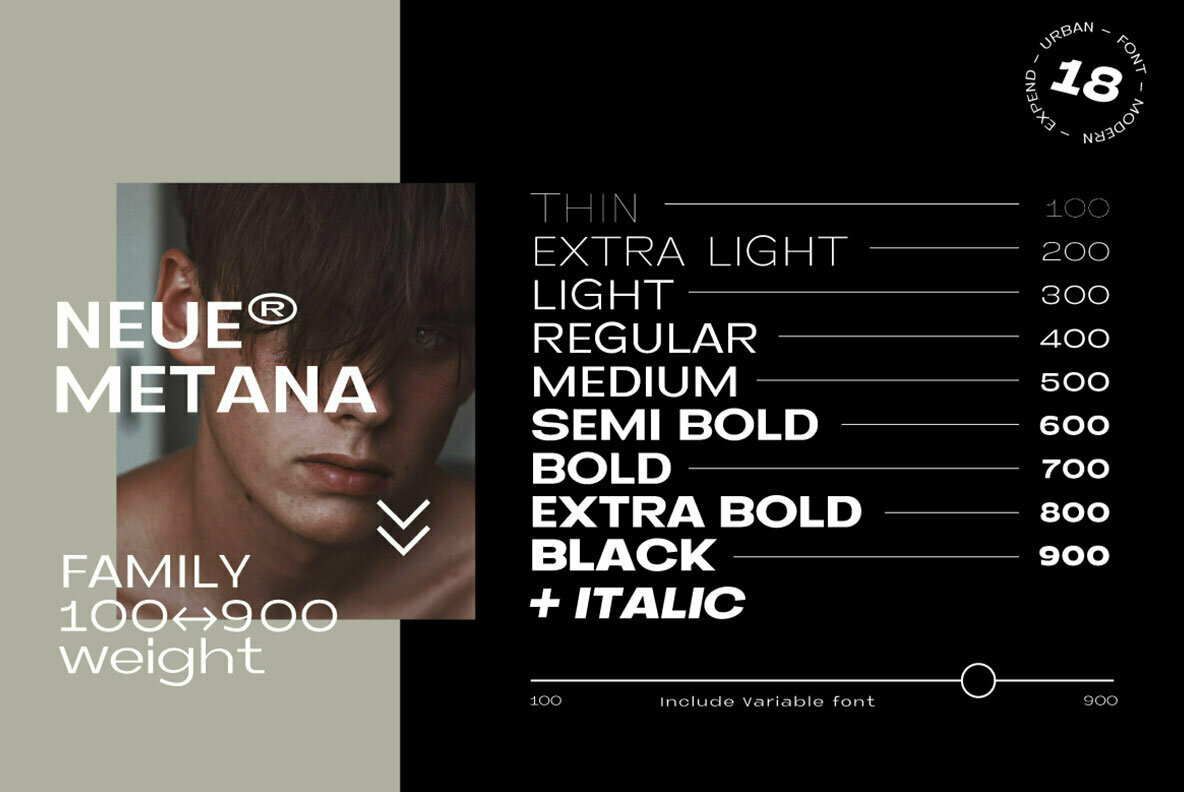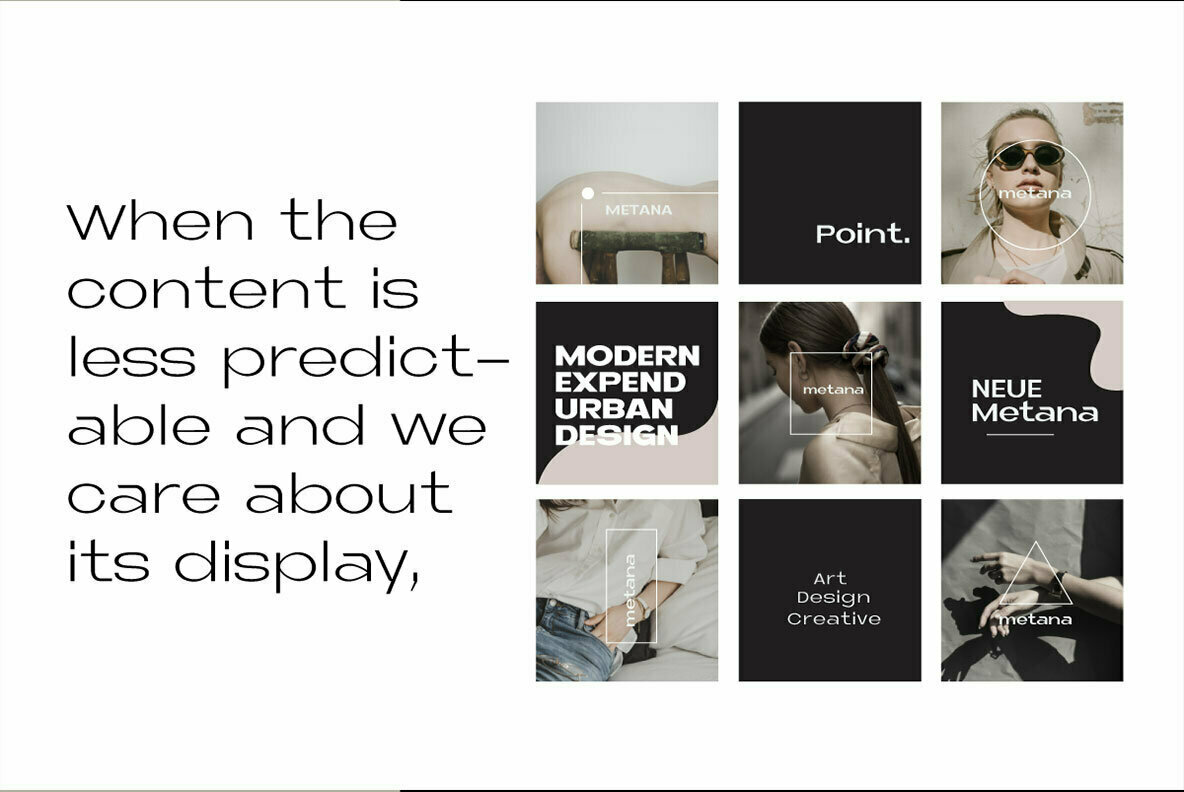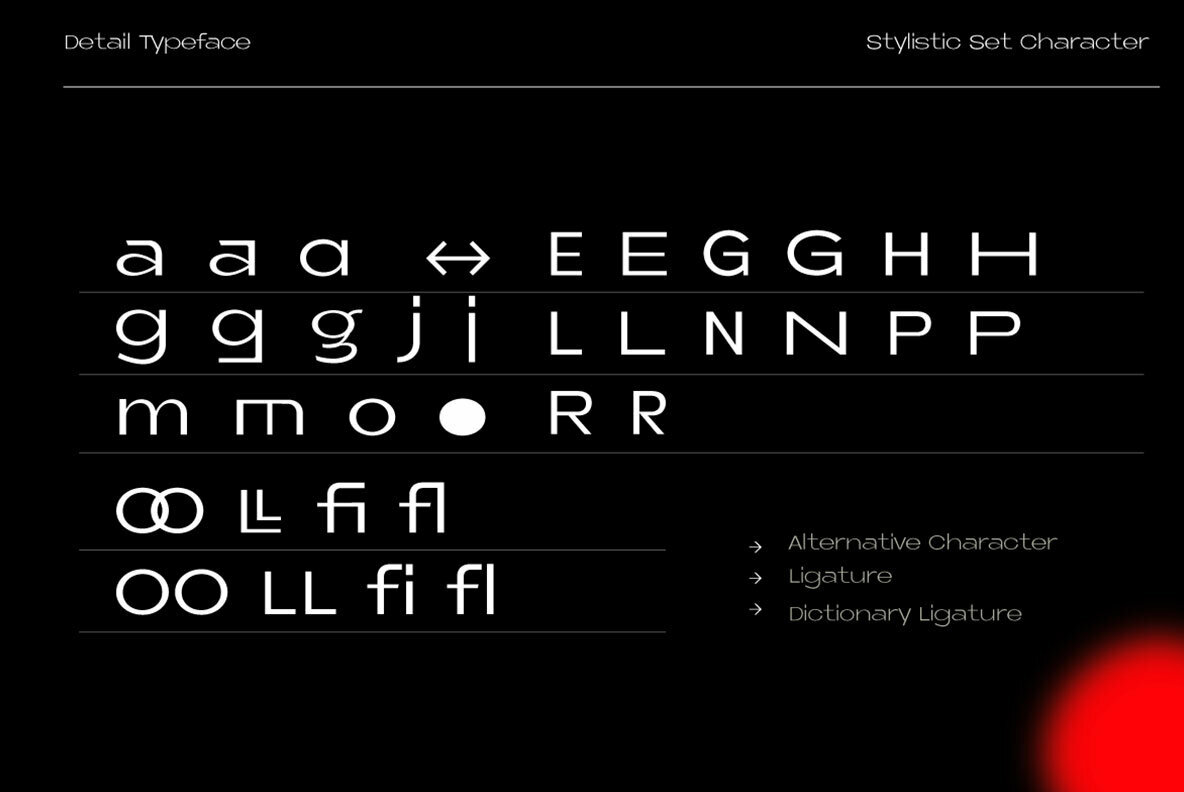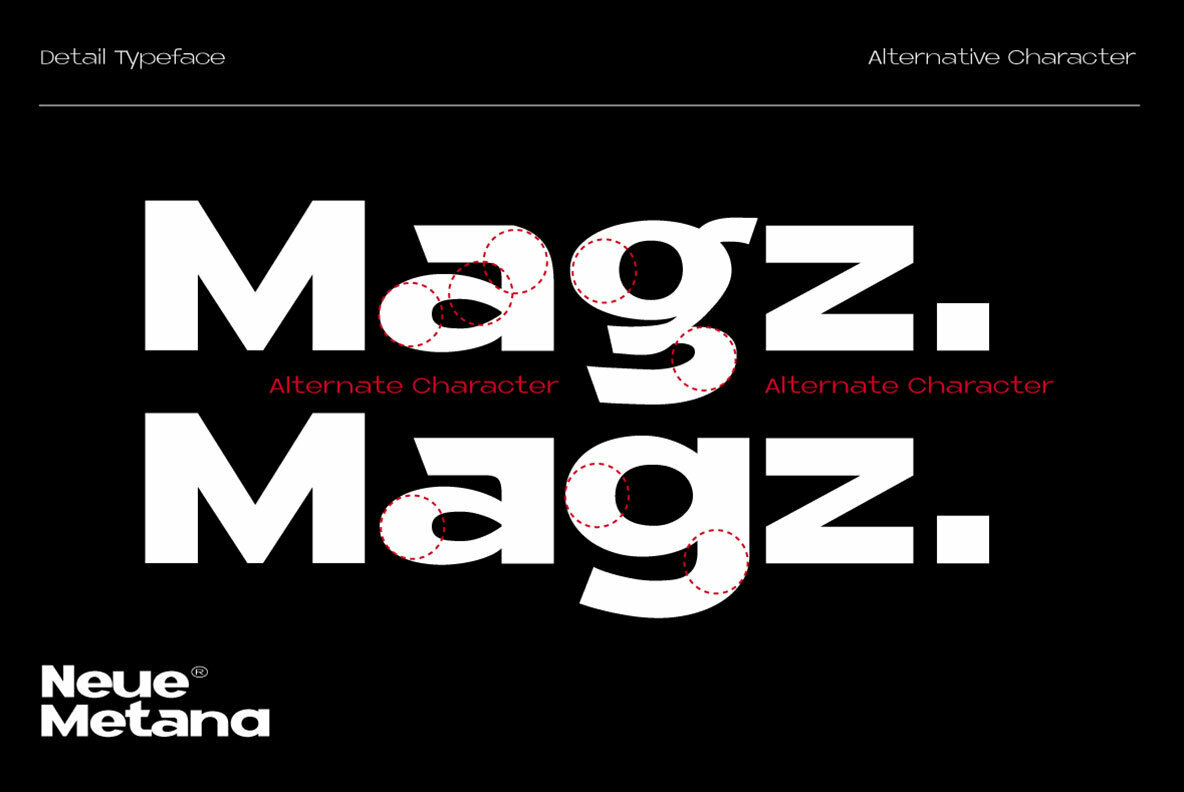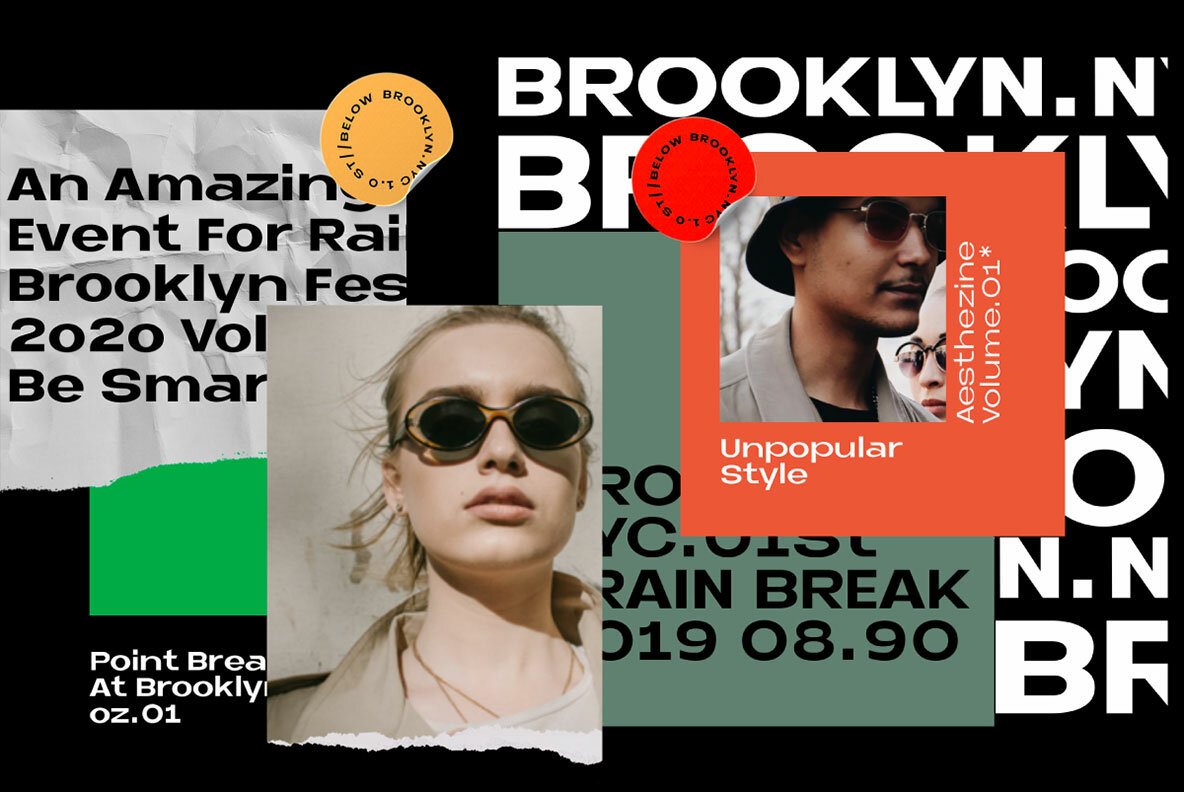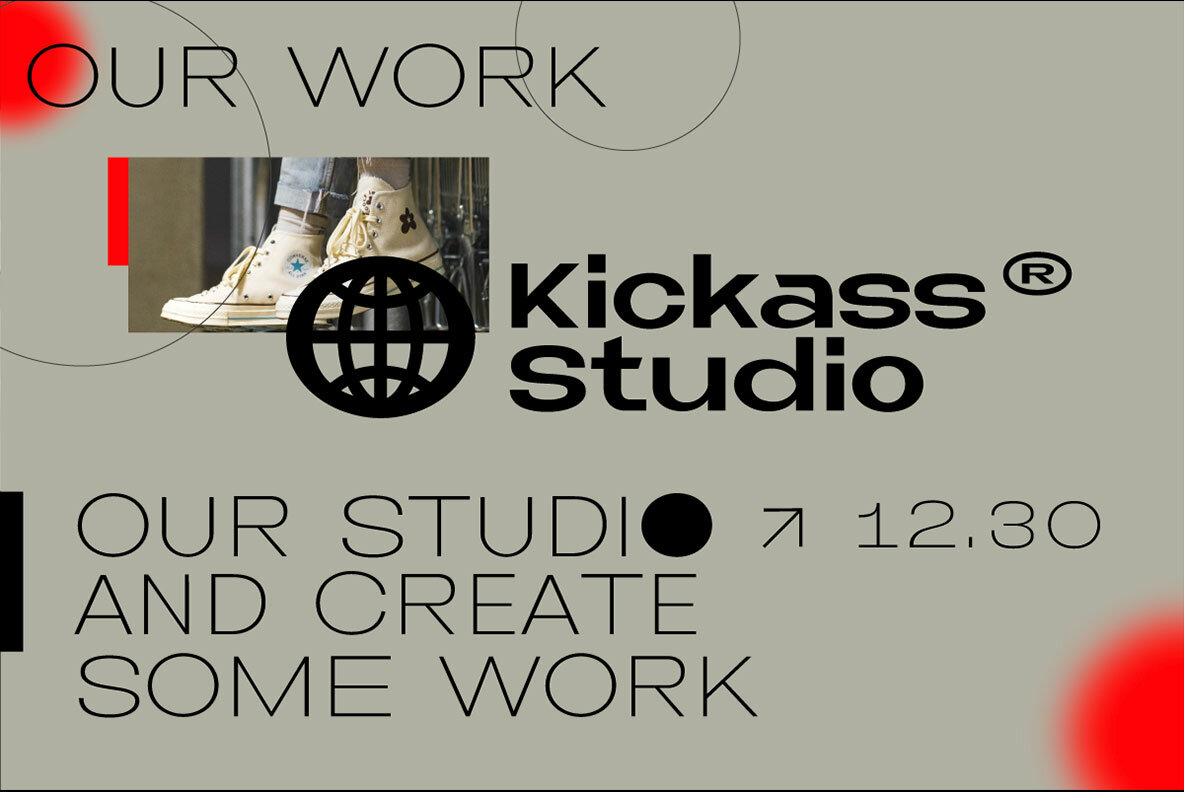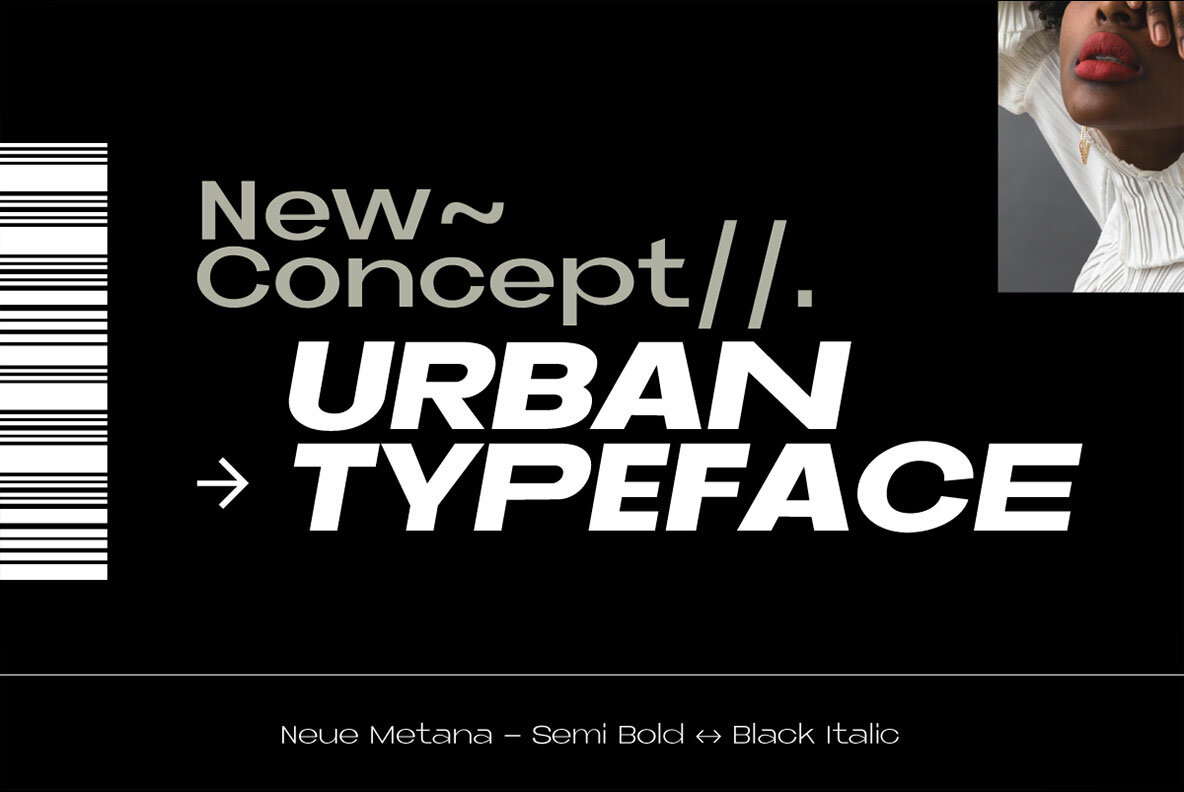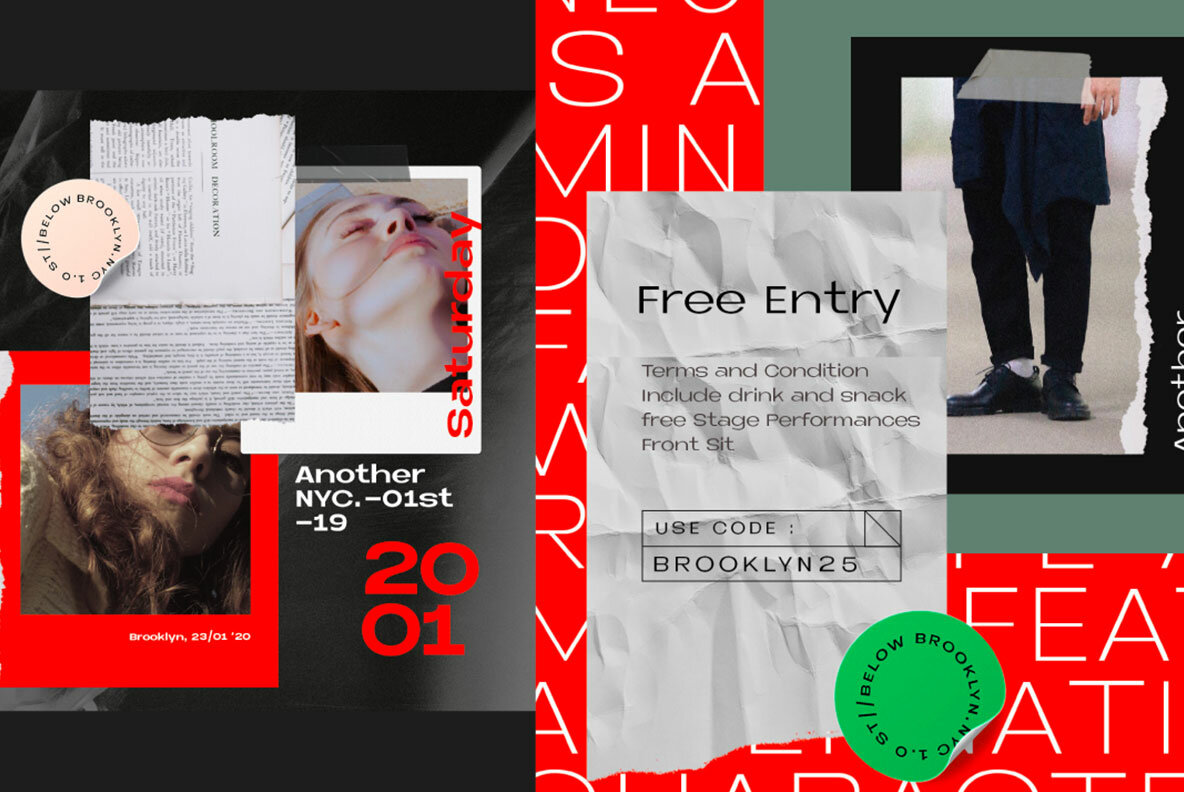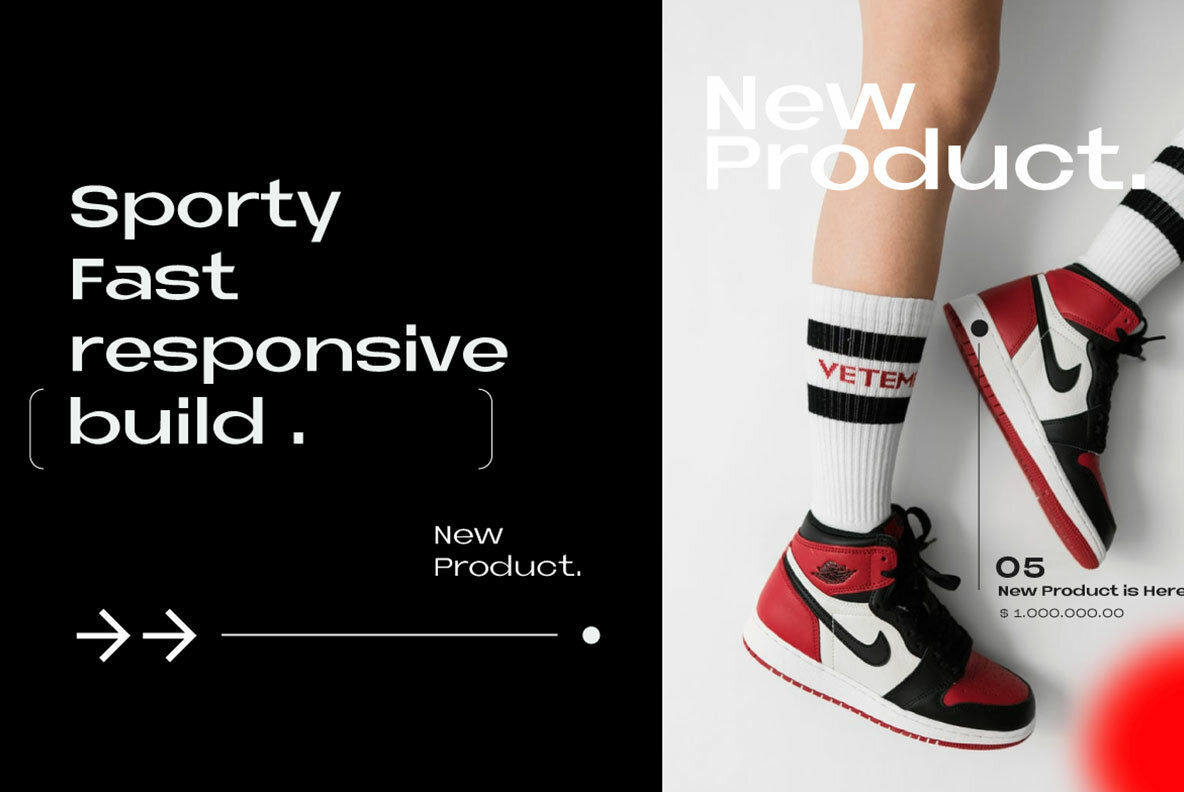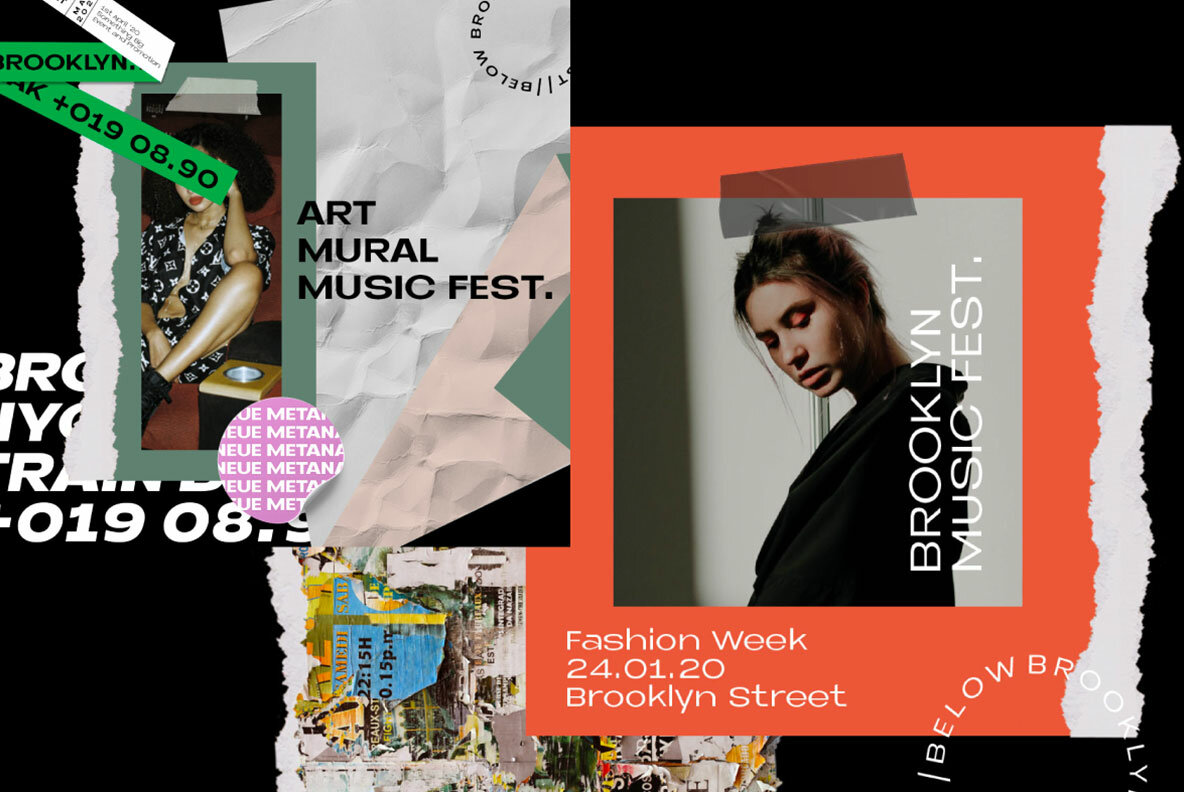
Neue Metana Font
Neue Metana is a modern minimalist design typeface with geometric type and more feature alternative character. there include some ligature. It is inspired by hype and urban design - a font suited for lifestyle with trend design. It was designed to be versatile, to blend in your design with light through bold weights add touch a lot of personality.